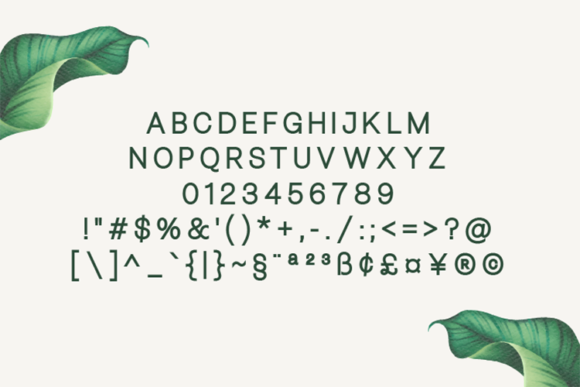
The Perfect Typography Touch: Introducing Bellezza Bold Font
Have you ever been working on a design project and felt like something’s missing? A spark that takes it from good to great? For designers, that spark often comes in the form of the perfect font. And when it does, it can make all the difference in elevating your work to the next level. That’s exactly what we’re excited to share with you today – a modern sans serif font that’s sure to leave a lasting impression.
| 👤 Author | Huntype |
Meet Bellezza Bold Font, a geometric masterpiece designed to make a statement. Its clean lines and sleek aesthetic make it perfectly suited for graphic design and display purposes. Whether you’re creating a brand identity, designing a website, or crafting a social media campaign, Bellezza Bold Font is the perfect companion to help you make a bold impact.
Bellezza Bold Font Key Features
- Unique Characteristics: Bellezza Bold Font features a distinctive, elegant design with bold lines and a luxurious feel, making it perfect for high-end branding and design projects.
- Language Support: Bellezza Bold Font supports a wide range of languages, including Latin, Cyrillic, and Greek alphabets, making it a versatile choice for global design applications.
- Font Weight: Bellezza Bold Font is a single-weight font, but its bold design makes it suitable for headings, titles, and other display typography.
Bellezza Bold Font Review
Overall, I’m impressed with the Bellezza Bold Font. It has a lot going for it, and I’ll highlight what works well for me: ✨ Beautiful and elegant appearance that adds a touch of sophistication to any design. ✨ Excellent legibility, making it perfect for body text or headings. ✨ Versatile and works well in both print and digital formats. ✨ A wide range of font sizes and styles available, making it easy to customize.
However, I do have some reservations: ⚠️ Limited language support, which may be a concern for designers working on international projects. ⚠️ Not ideal for display headings, as the font can become too bold and overpowering at larger sizes. ⚠️ Some users may find the font too ornate, which can make it difficult to read in certain contexts.
Despite these limitations, I think the Bellezza Bold Font is a great addition to any designer’s toolkit. Its unique appearance and excellent legibility make it a great choice for projects that require a touch of elegance. If you’re looking for a font that will add some sophistication to your designs, I’d definitely recommend giving Bellezza Bold a try.
Perfect for designers working on luxury brands, high-end magazines, or any project that requires a touch of elegance.
Tips: Use Bellezza Bold to create eye-catching headings and titles. Experiment with different font sizes and colors to create a visually appealing design.
Tips: Use Bellezza Bold to create bold and elegant typography. Experiment with different font sizes and layer styles to create depth and visual interest.
Tips: Use Bellezza Bold to create professional and polished typography. Experiment with different font sizes and colors to create a visually appealing design.
Bellezza Bold Font is ideal for:
- Creating eye-catching headings and titles.
- Designing elegant and sophisticated typography.
- Adding a touch of luxury and sophistication to your design.
Remember to experiment with different font sizes and colors to get the most out of Bellezza Bold Font.